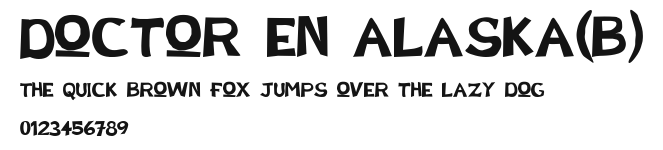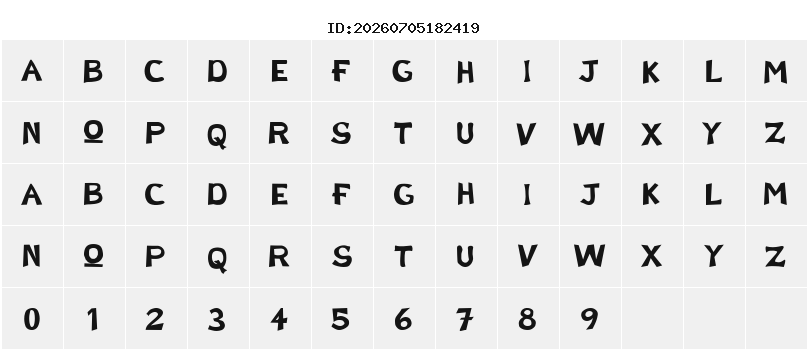
Doctor en Alaska(b) Preview
• Font Name: Doctor en Alaska(b)
About Doctor en Alaska(b).ttf
Doctor en Alaska(b).ttf is a modern, elegant sans-serif font designed for ultimate readability and visual harmony. Perfect for branding, headlines, web design, and print materials.